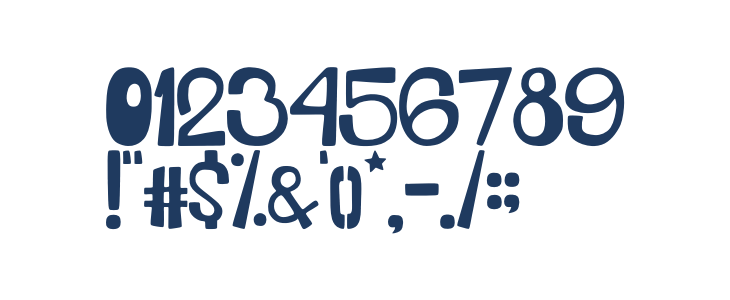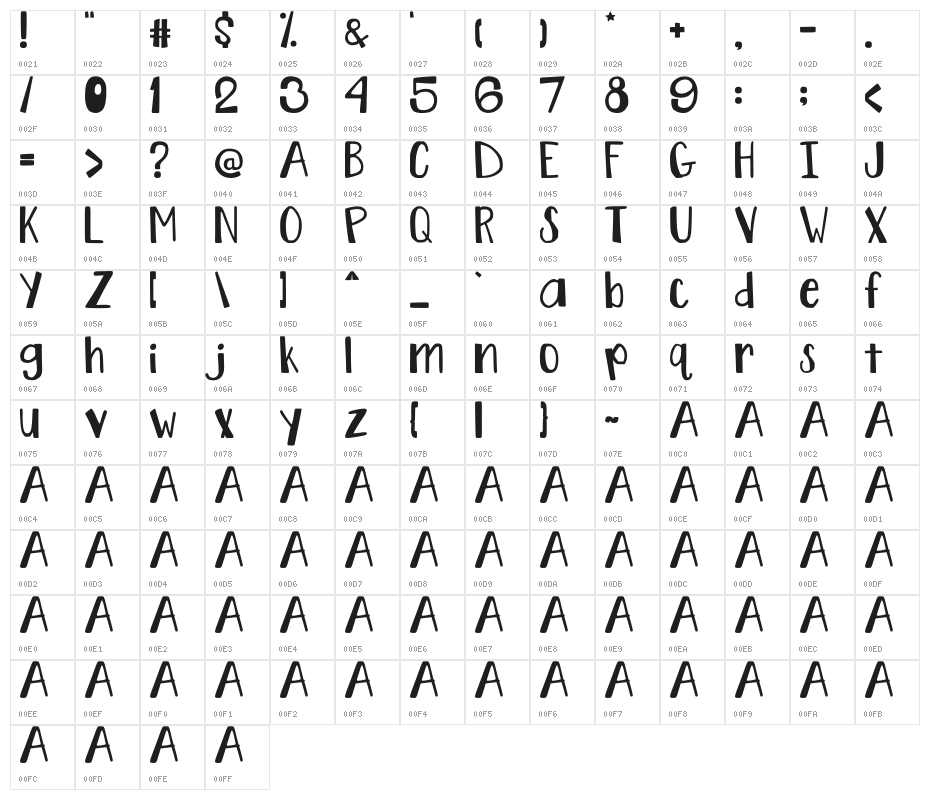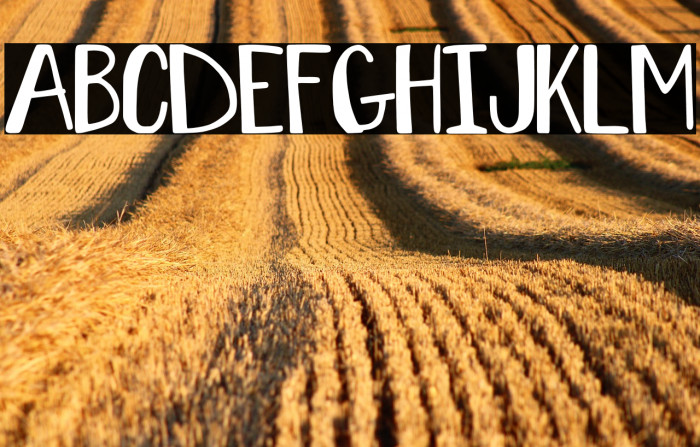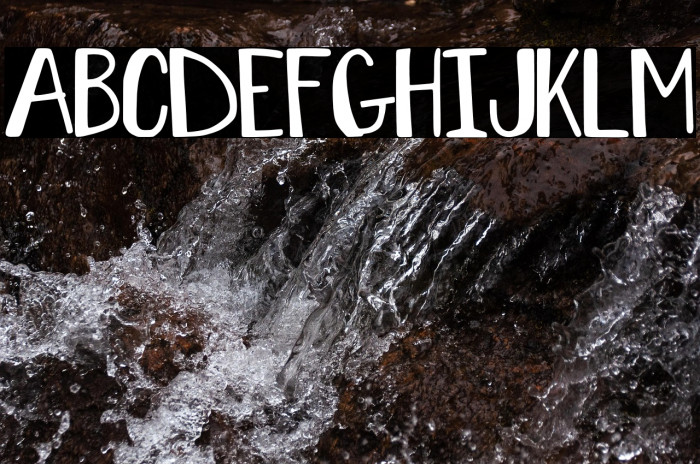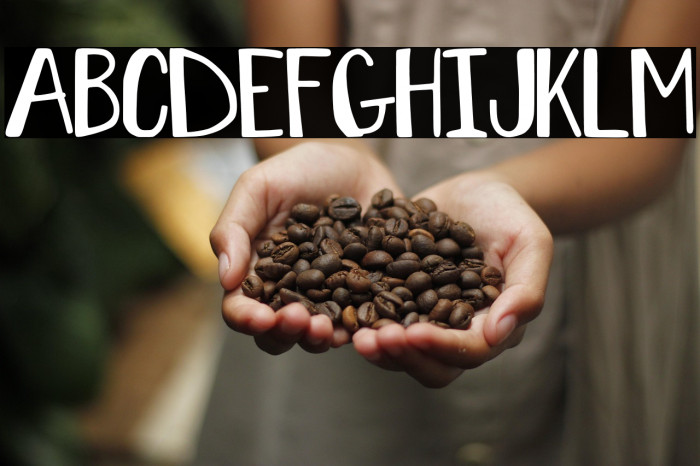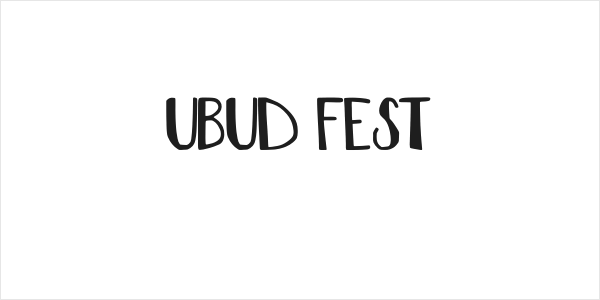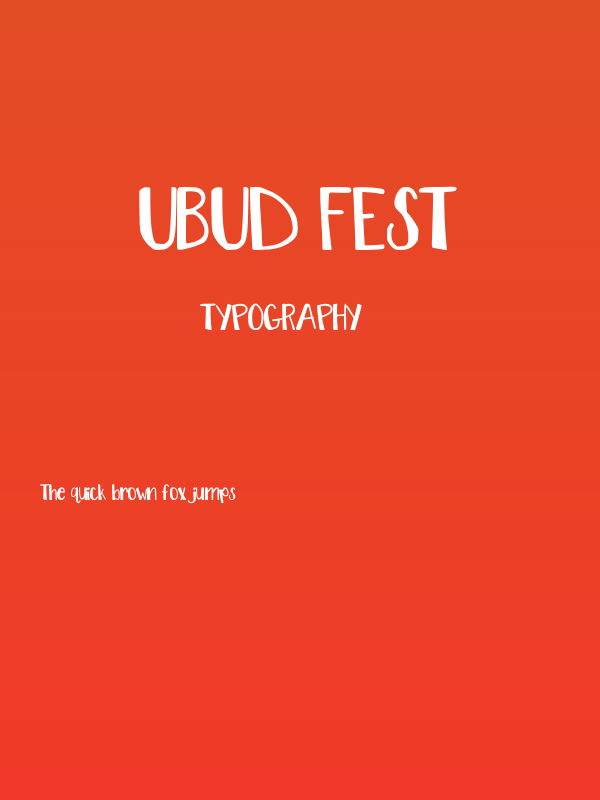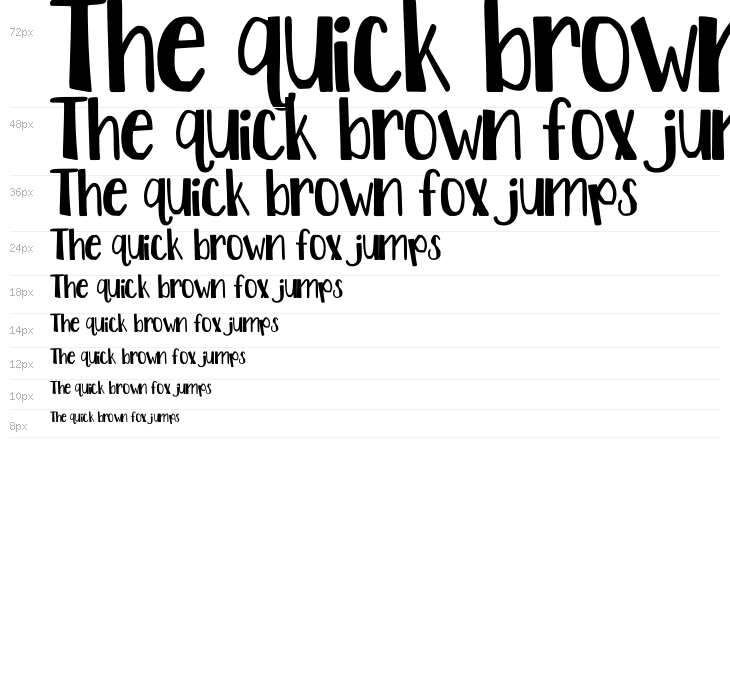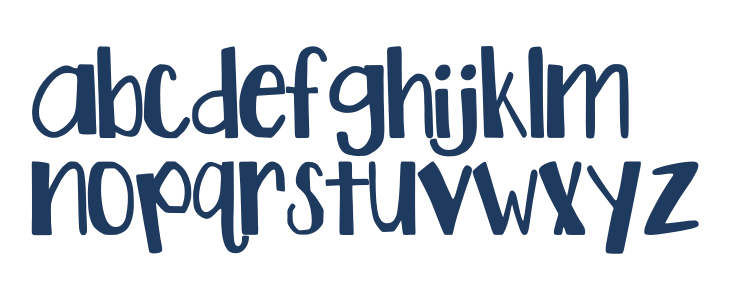
UBUD FEST Font
UBUD FEST Description
This font features a playful and bold style with a hand-drawn appearance. The characters are slightly irregular, giving it a whimsical and informal feel. The uppercase letters are tall and narrow, while the lowercase letters maintain a consistent height with rounded edges. The numbers are bold and prominent, matching the playful style of the letters. Special characters are creatively designed, adding to the overall quirky aesthetic. This font is ideal for projects that require a fun and engaging look.
| Overall Style | Playful, Whimsical |
| Use Case | Headlines, Posters, Branding |
| Proposed Projects | Ideal for children's books, playful branding, event posters, and creative social media graphics. |